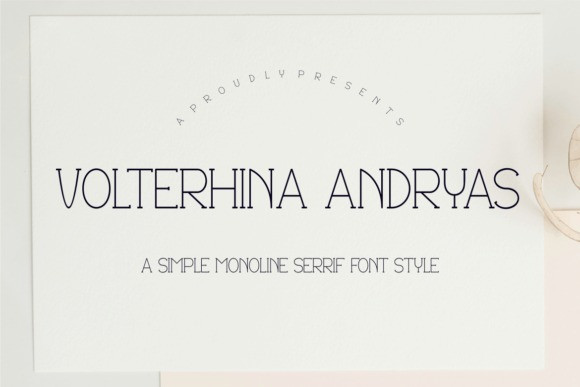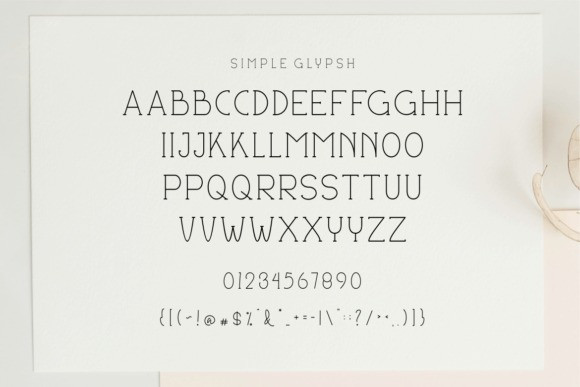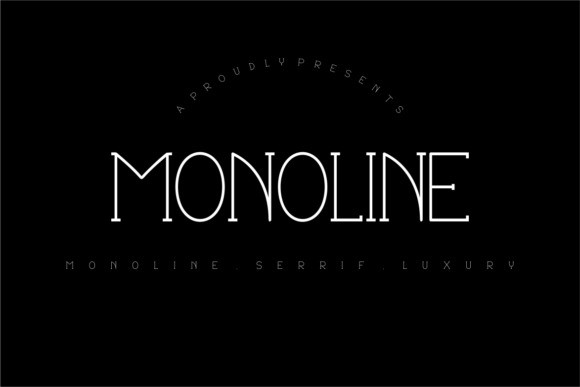
Volterhina Andryas Font
“Volterhina Andryas” is the font of the Serif element, but is lined, easy to read, and looks good to use in terms of relating to a product description.